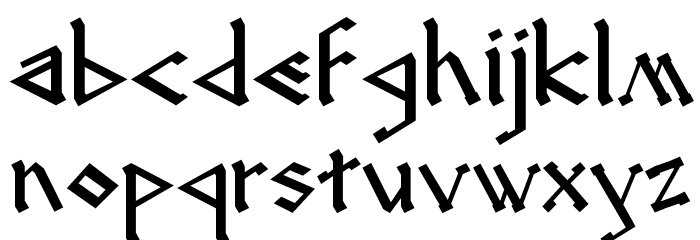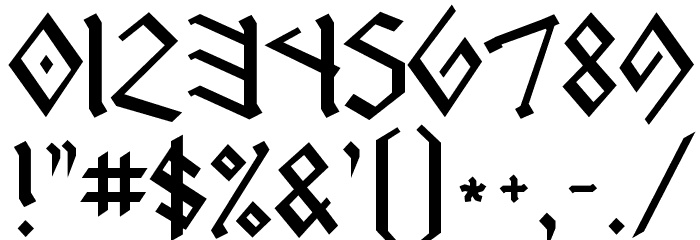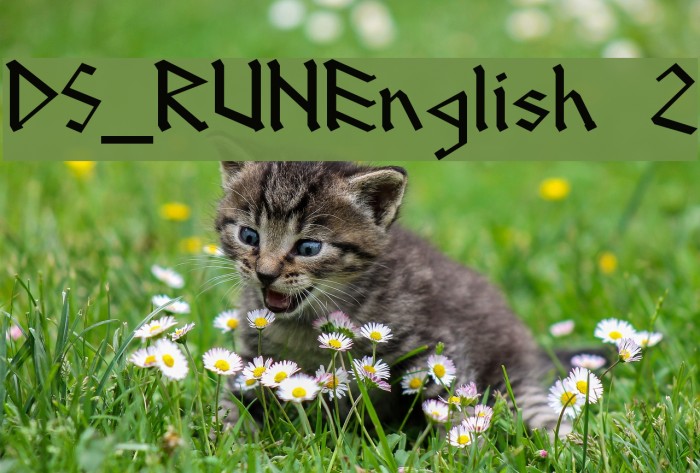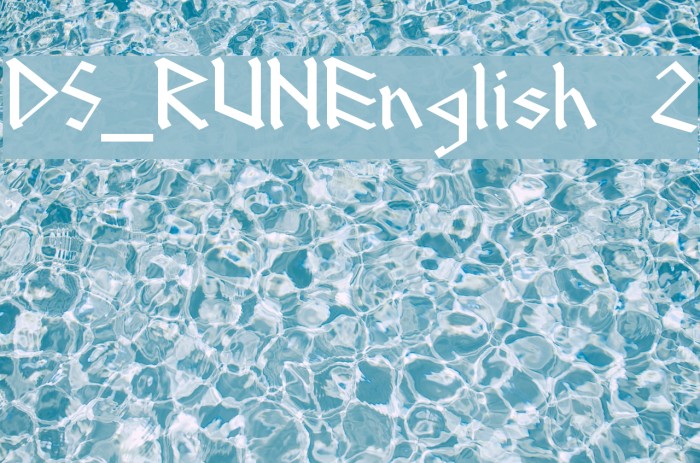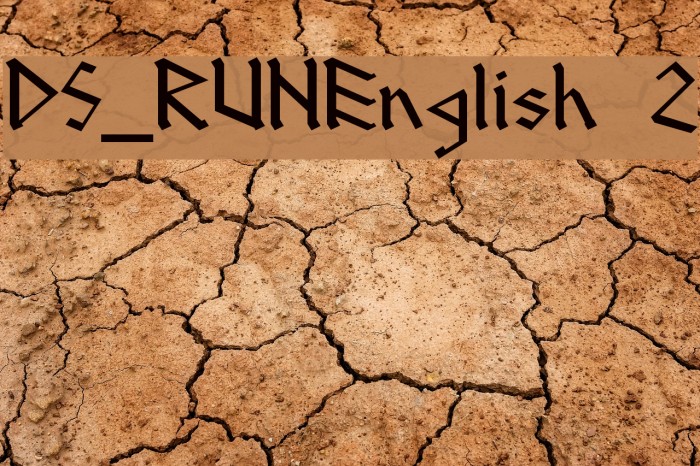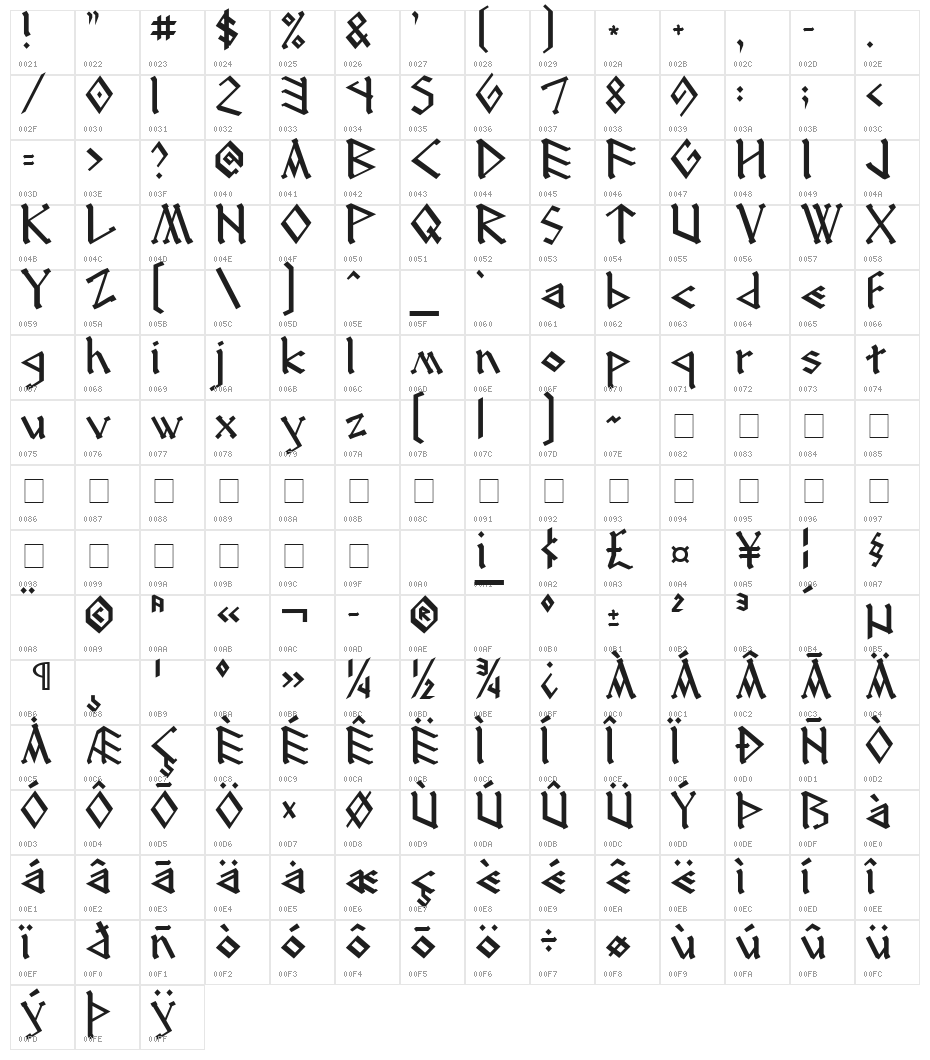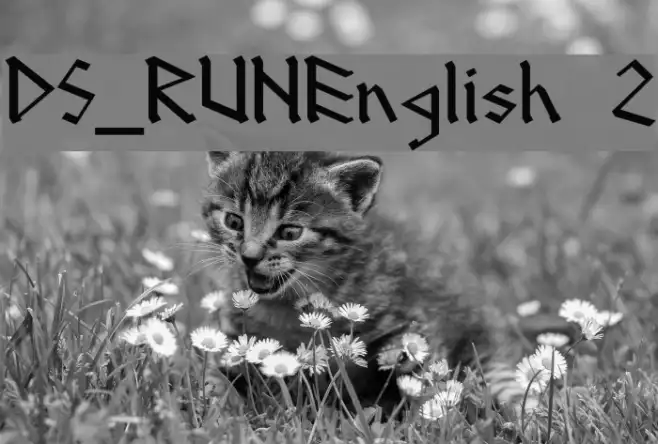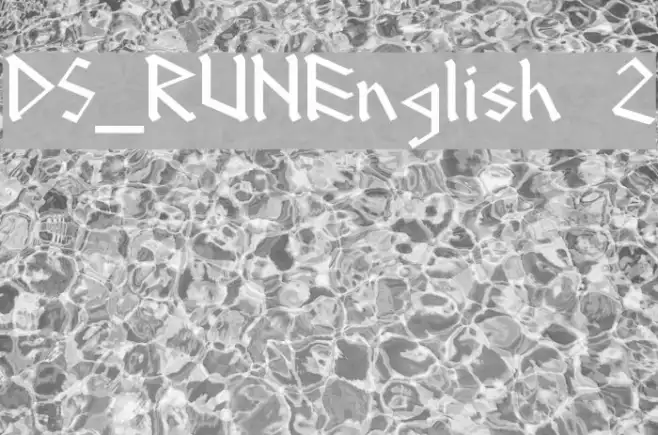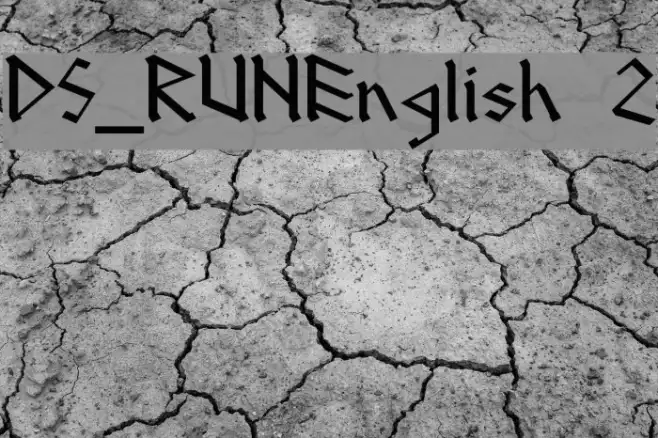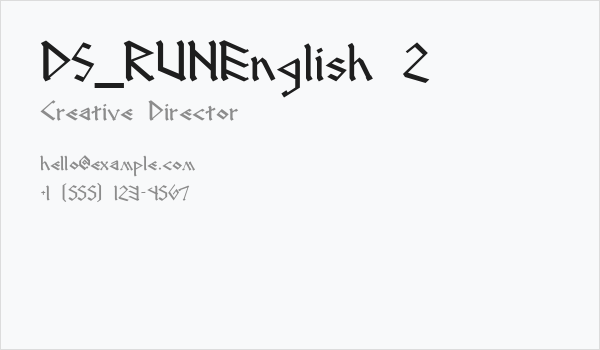
DS_RUNEnglish 2 Font
This font features a bold and angular design, reminiscent of medieval or gothic styles. The characters are sharply defined with a distinct geometric flair, giving them a strong and commanding presence. The uppercase letters are particularly striking, with pointed edges and a consistent stroke width that adds to the font's dramatic appearance. The lowercase letters maintain the same angular style, providing a cohesive look across all characters. Numbers and special characters are equally bold, ensuring readability while maintaining the overall aesthetic. This font is ideal for projects that require a touch of historical or fantasy elements, making it suitable for themed events, book covers, or game design.
A bold, angular font with a medieval or gothic style, featuring sharp, geometric characters.
- Font: DS_RUNEnglish 2
- Proposed Projects: Ideal for themed events, book covers, game design, or any project needing a historical or fantasy touch.
- Overall Style: Gothic, Medieval
- Use Case: Headlines, Logos, Themed Designs